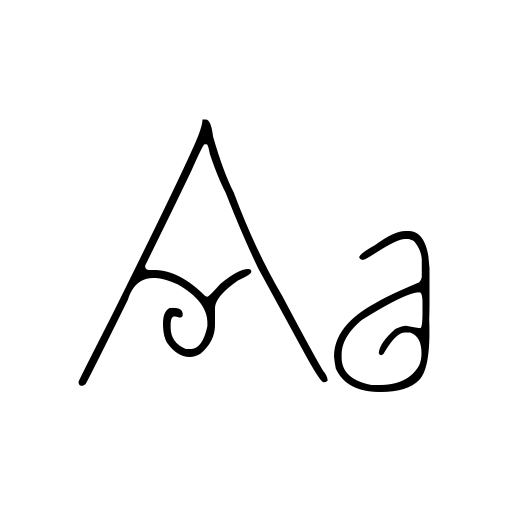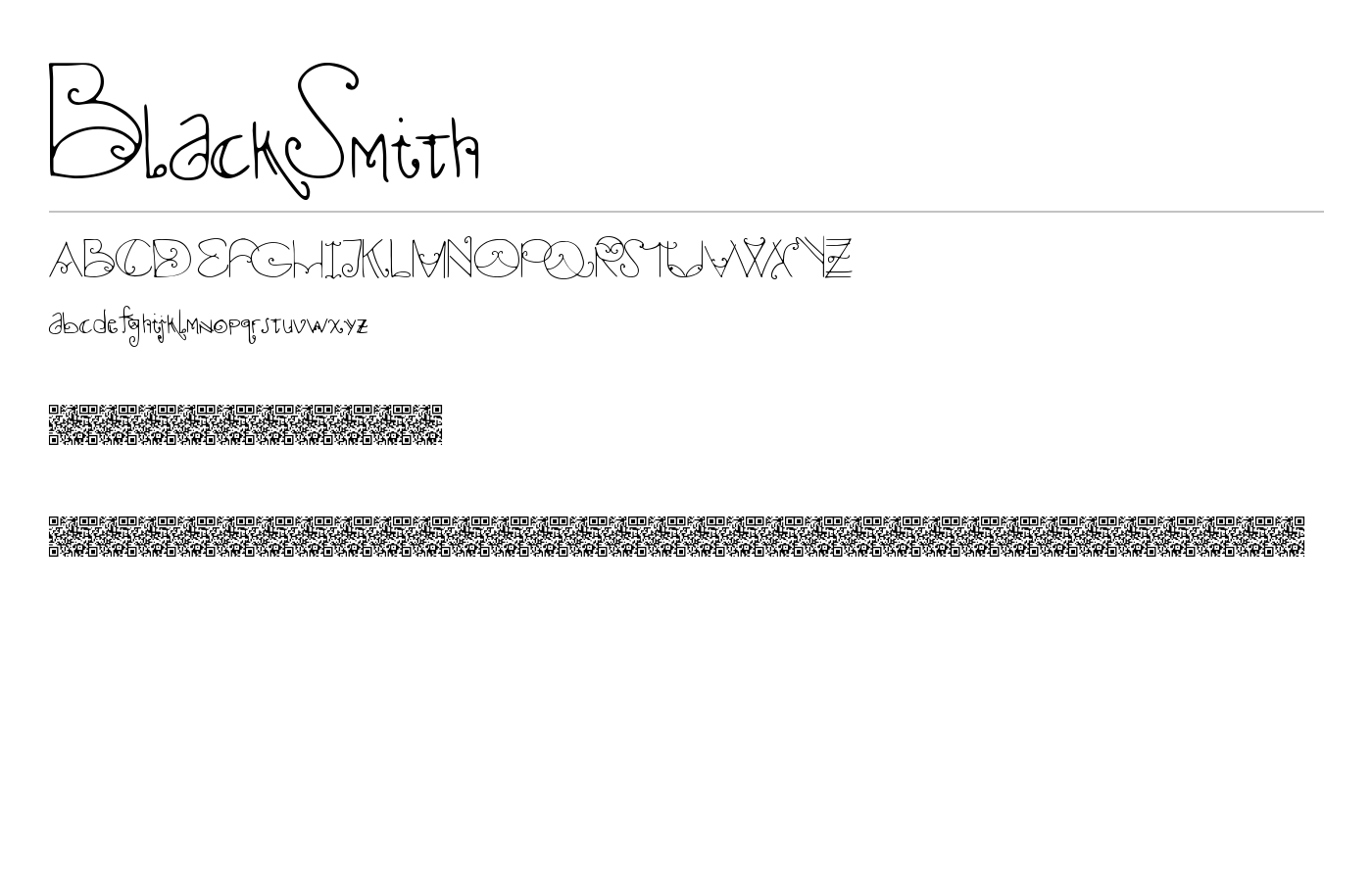
BlackSmith is a whimsical, decorative serif font with a hand-crafted, almost gothic feel that features thin, delicate strokes and unique, artistic letterforms characterized by curls and unusual shapes. Its playful and quirky personality makes it an excellent choice for creative branding, invitations, or display purposes where a distinctive and imaginative look is desired. This font works best in large sizes as a headline or logo to highlight its intricate details and artistic flair.
BlackSmith Font
About BlackSmith Font
| Font family | BlackSmith Font |
| Designer | Max Infeld Xerographer Fonts |